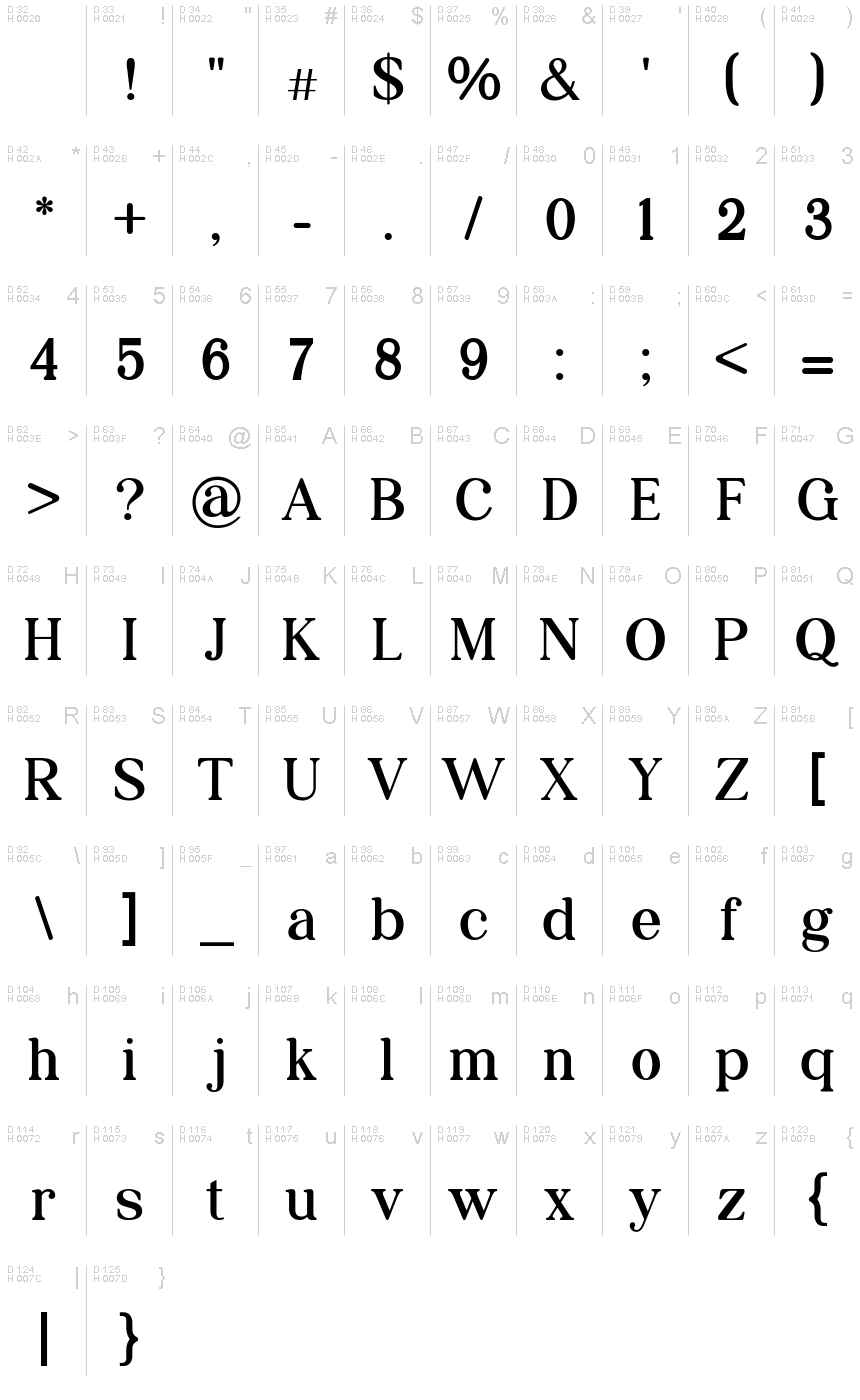
Grillages
Grillages, a captivating serif font crafted by UI Creative, exudes a timeless elegance with its refined, yet striking design. Boasting a harmonious balance of thick and thin strokes, Grillages commands attention with its robust, yet refined character. The font's distinct serifs add a touch of sophistication, while the balanced letterforms lend a sense of structure and stability. Whether used for editorial pieces, branding initiatives, or sophisticated typographic compositions, Grillages seamlessly blends traditional elegance with a modern sensibility.
This versatile font's versatility shines through in its ability to adapt to diverse design contexts. From magazine layouts and book covers to high-end packaging and luxury brand identities, Grillages' classic charm and timeless appeal make it a compelling choice for projects seeking to convey a sense of refinement, authority, and timelessness.